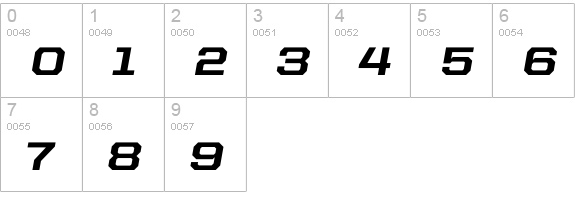
United Italic SemiExt Heavy Font Details
United Italic SemiExt Heavy is a heavy, high-impact, italic variant in the United typeface family \xE2\x80\x94 well suited to high-impact headlines, posters, and display advertising.
United Italic SemiExt Heavy font is a powerful and bold typeface that exudes strength and charisma. With its thick and extended letterforms, this font commands attention and makes a statement. It is perfect for headlines, titles, and any design project that requires a striking and impactful display. The United Italic SemiExt Heavy font combines the elegance of the Italic style with the robustness of a heavy weight, resulting in a unique and eye-catching typeface. Each letter is meticulously crafted with precision and care, ensuring a seamless and smooth reading experience. This font is freely available to download at FontsMarket.com. Whether you are a designer looking to add a touch of grandeur to your project or a creative individual in need of a standout typeface, United Italic SemiExt Heavy font is the perfect choice. It offers versatility and flexibility, allowing you to create stunning designs that leave a lasting impression. With its distinct and powerful appearance, the United Italic SemiExt Heavy font is suitable for a wide range of applications. From branding and marketing materials to editorial design and packaging, this font adds a touch of sophistication and elegance to any project. Download the United Italic SemiExt Heavy font for free at FontsMarket.com and unleash your creativity. With its striking presence and impeccable design, this font is sure to elevate your designs to the next level. Don't miss out on the opportunity to make a bold statement with this remarkable typeface.